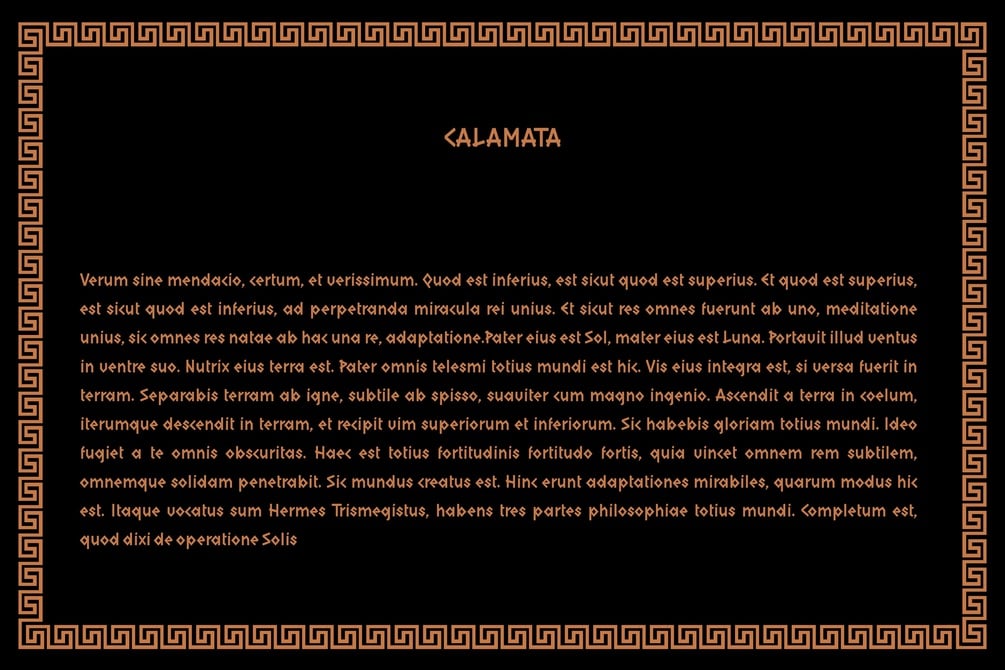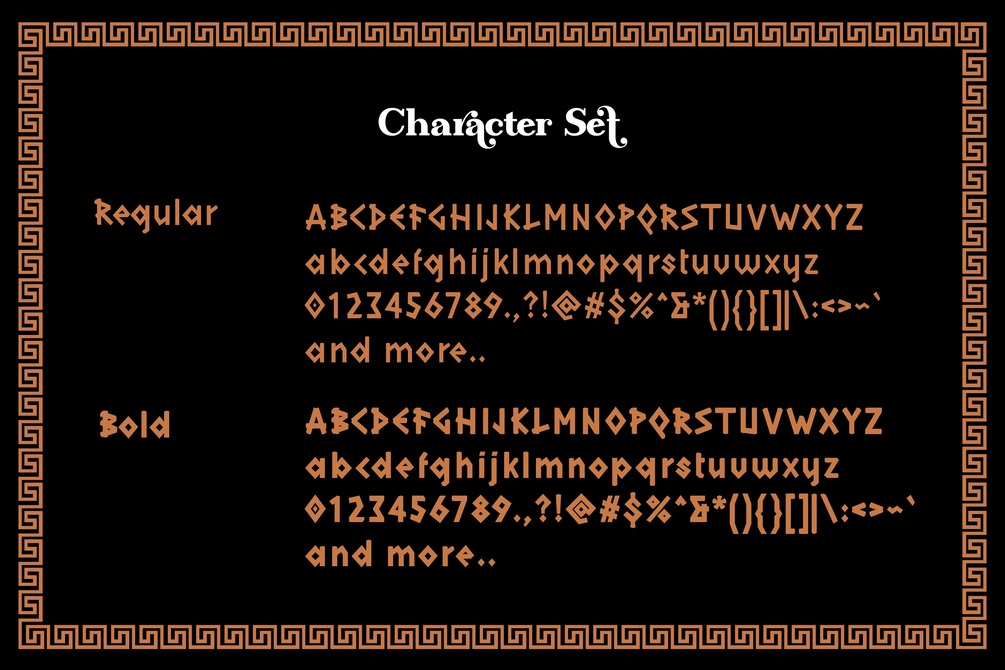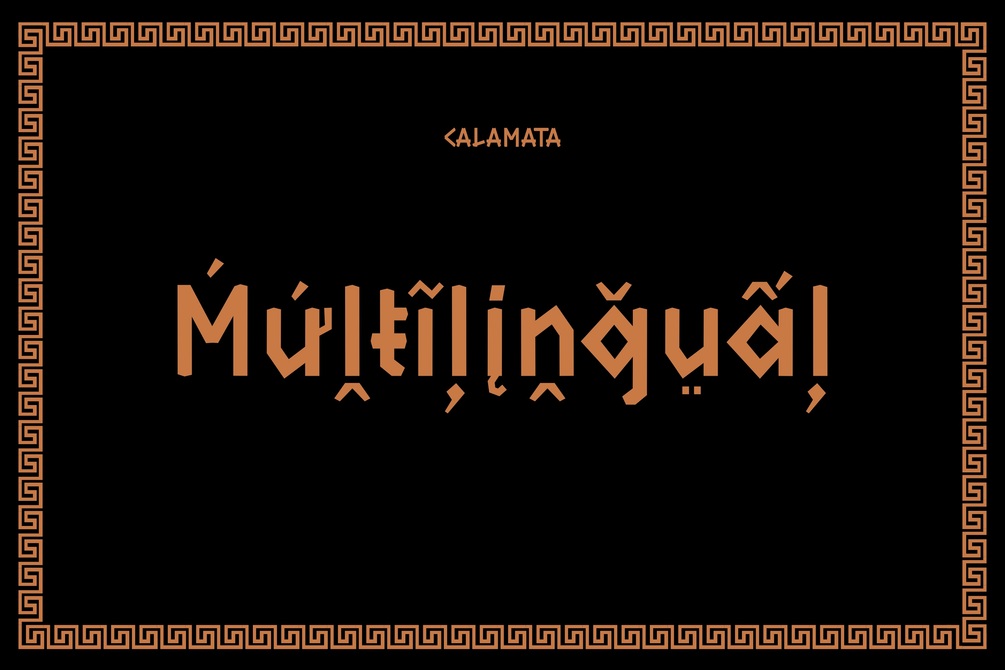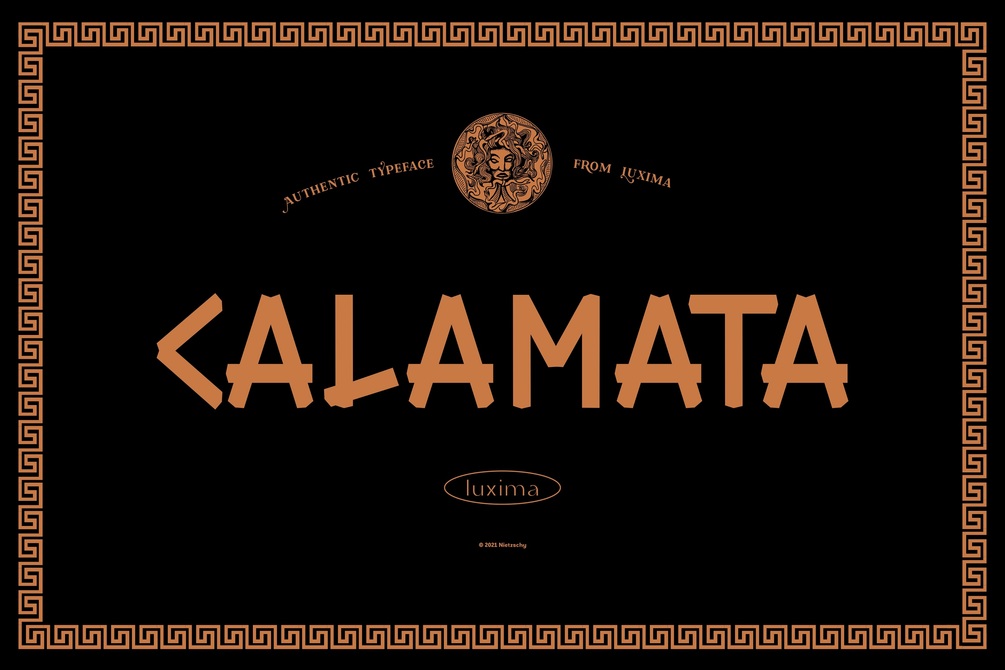
Calamata - Greek Style Display Typeface | Multilingual
Calamata is a fun, thick lettered and playful display font. Whether you’re using it for crafts, digital design, presentations, or making greeting cards, this font has the potential to become your favorite go-to font, no matter the occasion!
Calamata is a decorative, serif font with 683 glyphs in 2 weights (Bold and regular) including:
• Extended Latin characters,
• punctuation marks,
• diacritics and
• numbers.